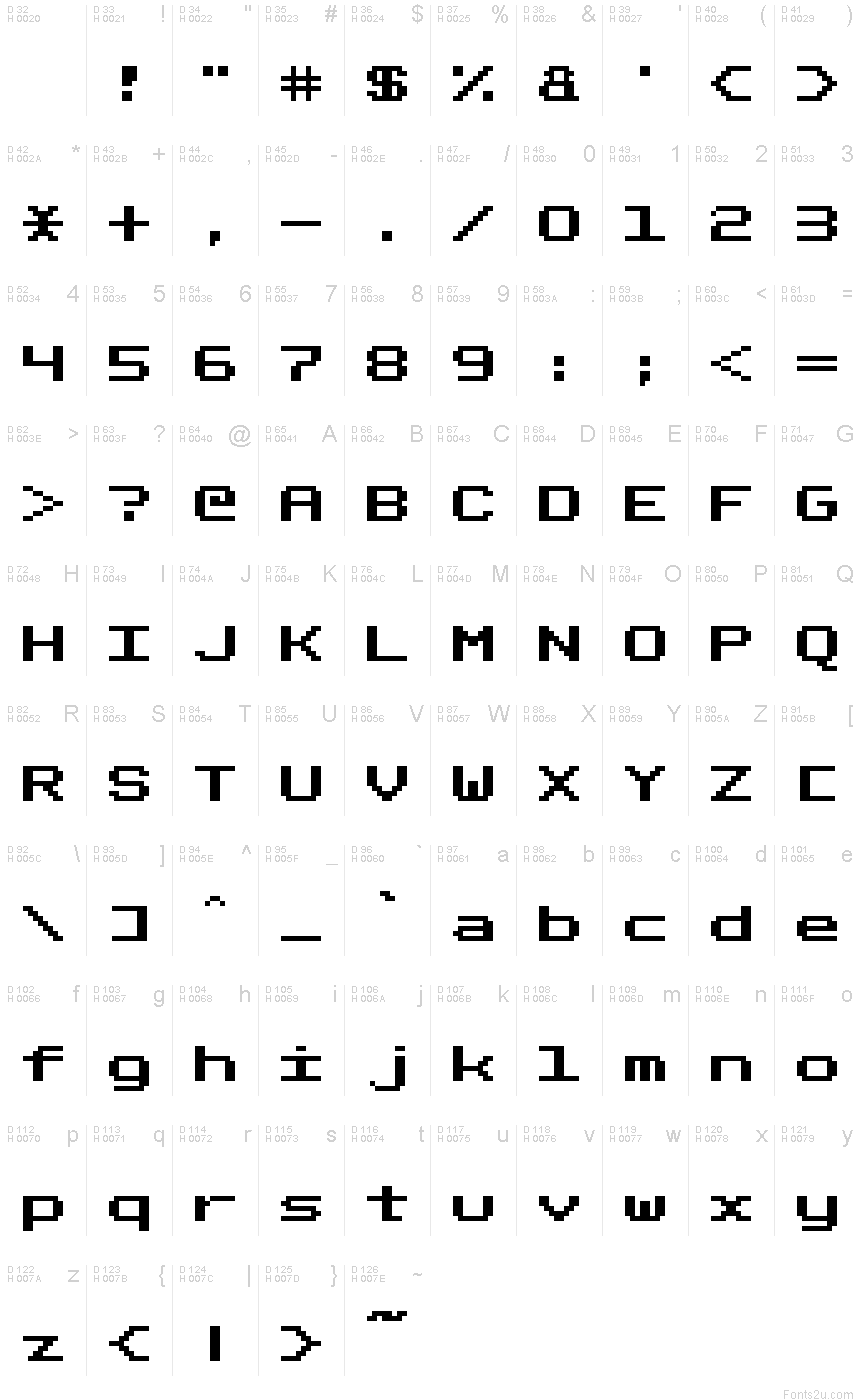
fixed_bold
Fixed Bold font by Orgdot is a free pixel bitmap typeface with a chunky, low-res grit that feels straight out of an old CRT monitor. Every character locks neatly into a blocky grid, giving text a sturdy, mechanical rhythm that’s easy to read even at tiny sizes. The bold weight and tight spacing make words feel dense and punchy, like they’ve been stamped onto the screen.
Using Fixed Bold, you’ll get a strong retro backbone for game HUDs, terminal-inspired UIs, pixel art captions, zines, flyers, and techy logos. This free font shines on monochrome layouts, but it also pops when you drop it over noisy textures or neon gradients. For a simple pairing, set headlines in fixed_bold and support them with a clean, modern sans in smaller sizes to keep everything balanced and readable.